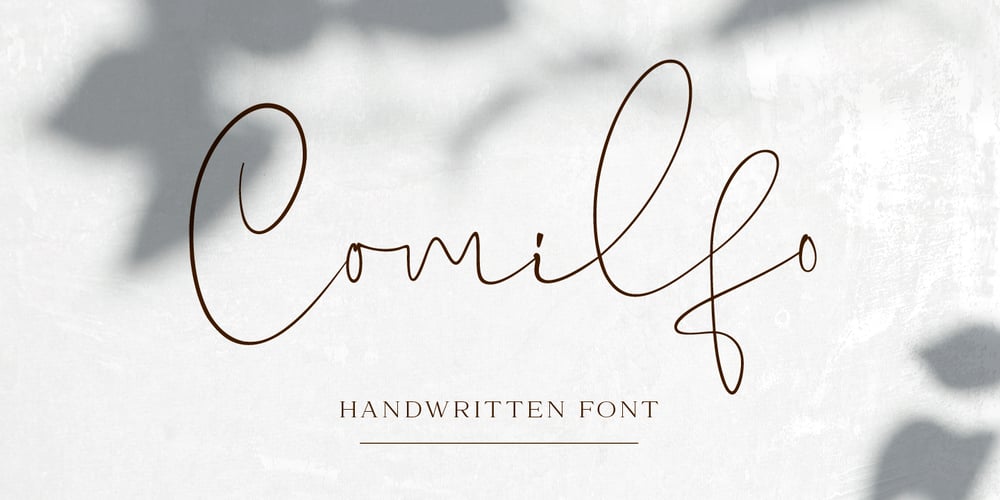
Comilfo Font Family was designed by Pavel Larin and published by Larin Type Co. Comilfo contains 1 styles and family package options. Comilfo is an amazing handwritten font that is delicate and elegant. It will emphasize your personality in any project and will charm you with its signature. Comilfo looks stunning on wedding invitations, thank you cards, quotes, greeting cards, logos, business cards and every other design which needs a handwritten touch. This font includes alternates, ligatures, and swashes. Comilfo has OpenType features.